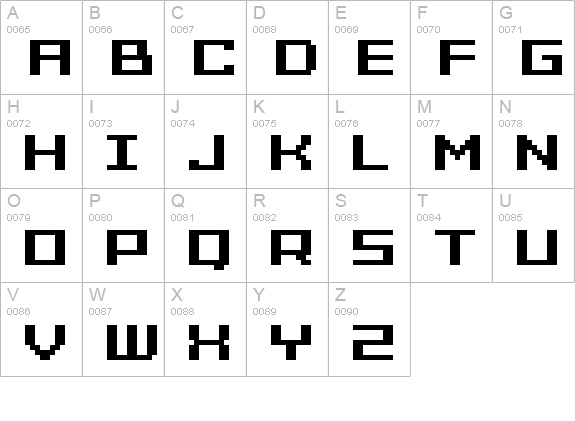
Grixel Acme 7 Wide Bold is a strong, high-contrast, extended-width variant in the Grixel typeface family \xE2\x80\x94 well suited to headlines, attention-grabbing titles, and strong calls-to-action.
Grixel Acme 7 Wide Bold font is a modern and versatile typeface that exudes a strong and commanding presence. With its bold and wide design, this font is perfect for making a statement in headlines, titles, and other display purposes. The sharp edges and clean lines give it a sleek and professional look, making it ideal for a wide range of projects. What sets Grixel Acme 7 Wide Bold font apart is that it is available for free download at FontsMarket.com. This means that you can easily access this high-quality font without any cost, making it a valuable addition to your font library. Whether you're working on a branding project, a poster design, or any other creative endeavor, Grixel Acme 7 Wide Bold font will help you achieve a bold and impactful result. Download it today and unleash your creativity with this impressive typeface.